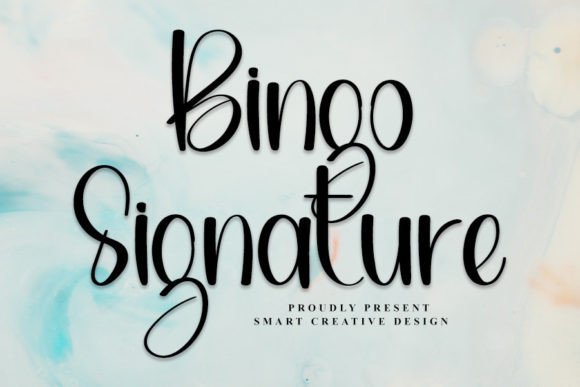
Discover the Magic of Handwritten Charm with Bingo Signature Font
There’s something special about a handwritten note or invitation that makes it feel more personal and heartfelt. It’s the imperfections and unique strokes that speak directly to our emotions, making us feel like we’re receiving a one-of-a-kind message. That’s exactly what Bingo Signature Font is all about – capturing the essence of handwritten charm in a digital format.
Designed to be versatile and easy to use, Bingo Signature Font is perfect for a wide range of creative projects. Whether you’re designing wedding invitations, social media posts, or simply want to add a touch of personality to your blog, this font is sure to inspire. Its casual and flowing style makes it a valuable asset for designers looking to add a human touch to their work.
Bingo Signature Font Key Features
- Font Family: Bingo Signature Font is a unique, hand-drawn font designed to resemble a signature. It’s perfect for adding a personal touch to your designs.
- Unique Characteristics: The Bingo Signature Font features a dynamic, handwritten style with varying line widths, making each letter unique and adding to its signature-like feel.
Bingo Signature Font Review
Overall, I was quite impressed with the Bingo Signature Font. Here are some of the things that caught my attention:
- ✨ The unique blend of modern and elegant design elements gives this font a sophisticated feel.
- ✨ It’s incredibly versatile and suitable for a wide range of design projects, from business cards to posters.
- ✨ The font is highly customizable, allowing designers to fine-tune the look to suit their needs.
- ✨ The OpenType features make it easy to create complex typography and add visual interest to designs.
- ⚠️ The font can be quite dense, which may not be suitable for all design applications.
- ⚠️ Some characters may require additional tweaking to achieve the perfect balance between legibility and aesthetics.
Overall, I’d give the Bingo Signature Font 4 out of 5 stars. While it’s not perfect, its strengths far outweigh its weaknesses, making it a solid addition to any designer’s toolkit.
For optimal results, use the Bingo Signature Font in bold or italic styles to add emphasis to your text. This font is particularly suitable for creating playful and energetic designs, such as social media graphics, party invitations, and children’s educational materials.
Experiment with different font sizes and colors to create visually appealing combinations. You can also pair the Bingo Signature Font with other fonts to create a unique and eye-catching design.